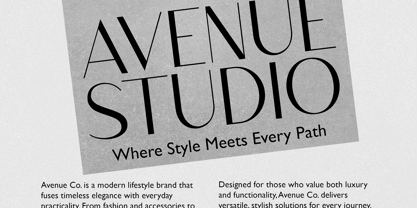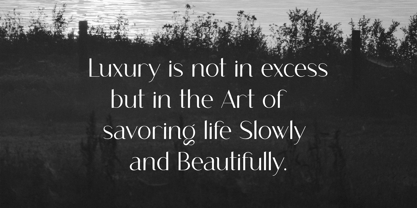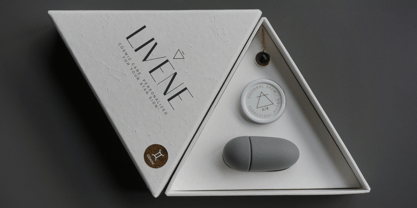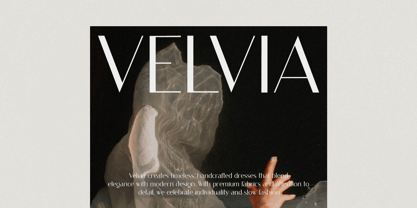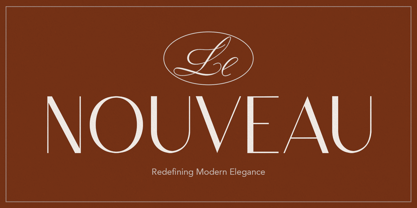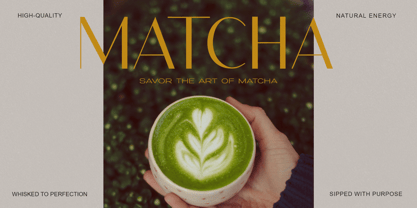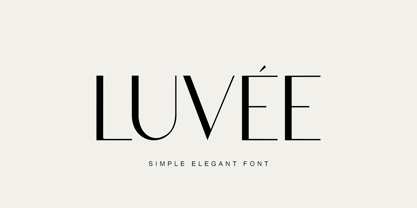
Luvee
by Elvina Studio
The Luvee Font Family was designed by Elvina Gafarova and published by Elvina Studio. Luvee contains 2 styles and family package options.
Luvée is a simple, elegant sans-serif font with clean lines and timeless style. Perfect for modern, minimalist designs, it adds a touch of sophistication to any project.
- Upper/lowercase, numbers, punctuations;
- Regular, Oblique.
Designers: Elvina Gafarova